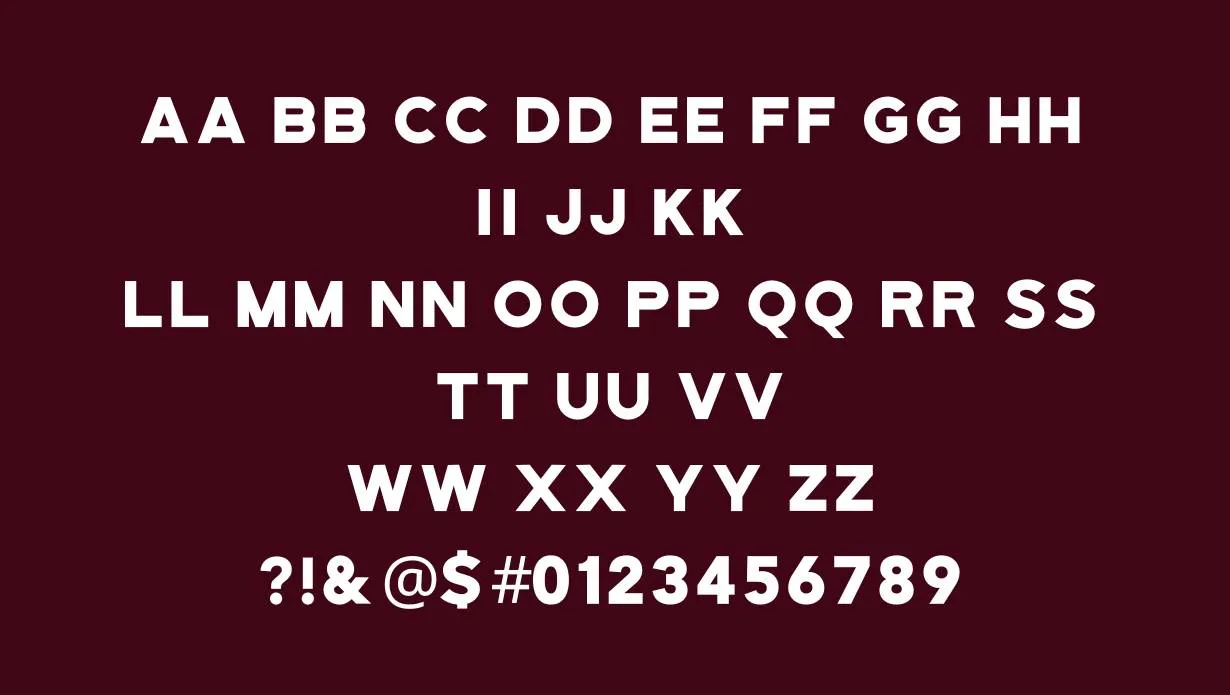
Bourbon Grotesque Font is a modern and sleek typeface known for its clean lines and versatility.
It’s commonly used in branding, web design, and various design applications where a contemporary and sophisticated appearance is desired.
| Name | Bourbon Grotesque Font |
| Designer | Jeremy Vessey |